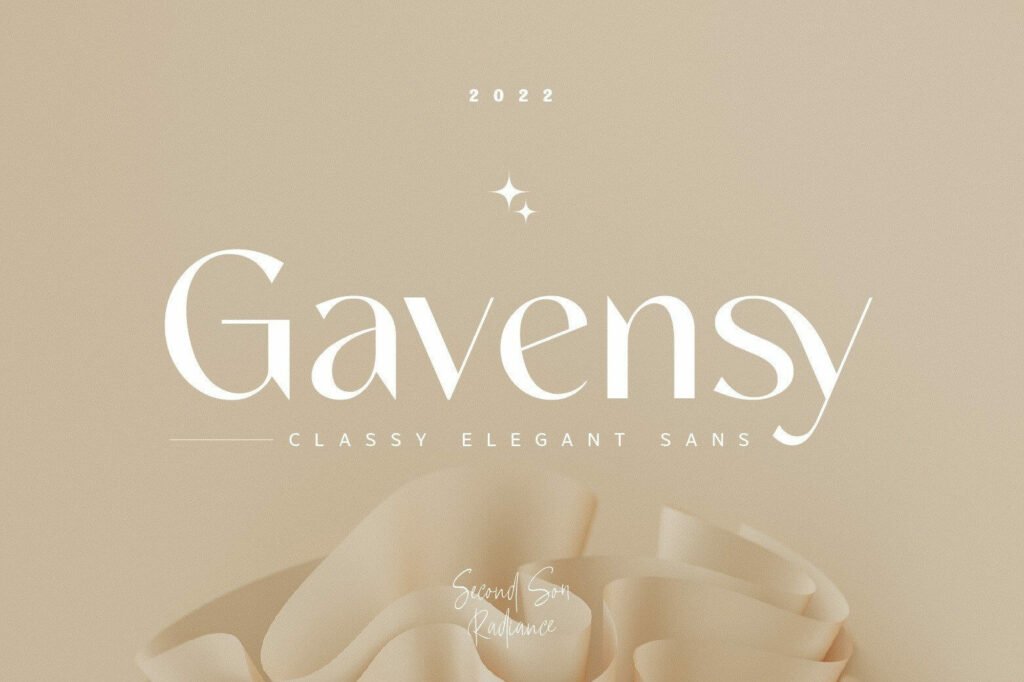
Gavensy Font
Gavensy is a sophisticated, charming sans-serif font with a fashionable touch. Specially designed for luxury, elegant, feminine projects, this font is perfectly suitable for creating modern, chic designs.
Gavensy Sans Serif Font